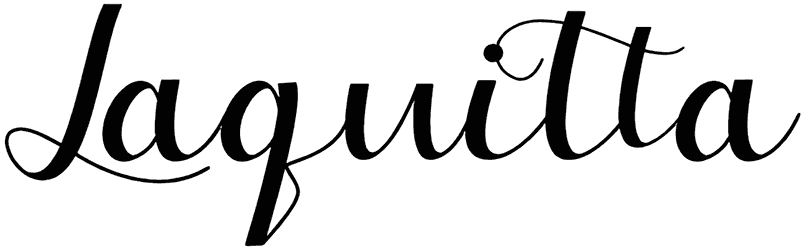
Laquitta Font
If you want your project to have a sleek, contemporary feel, Laquitta is the way to go. It’s a fantastic option because of the font’s attached, fluid appearance.